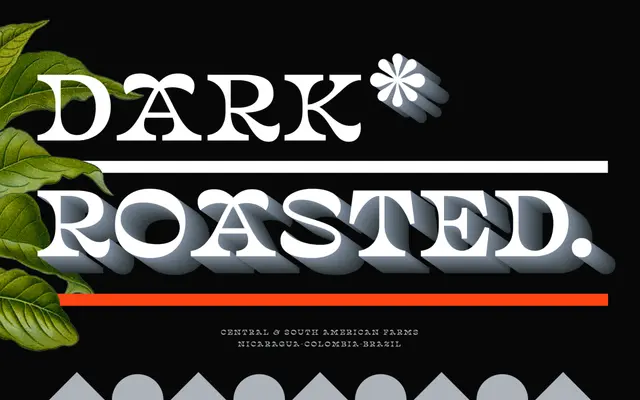
Gumption Caps
Typozon · Cristian Vargas · 2020
A single-weight all-caps display typeface commissioned by Lippincott for Gumption Coffee's brand identity, designed by Cristian Vargas at Typozon.
Designed by Cristian Vargas as a bespoke commission for Gumption Coffee, an Australian specialty coffee brand expanding across the United States, the typeface was developed in partnership with Lippincott as part of a broader visual identity system. It exists in one weight, caps only, with Basic Latin and Latin-1 coverage. The identity work was recognised by Underconsideration, and the typeface licence remains exclusive to Gumption Coffee until October 2025.
An all-caps custom display typeface designed for brand identity use, with no lowercase and a single weight, placing it firmly in the display category rather than a general-purpose serif or sans-serif.